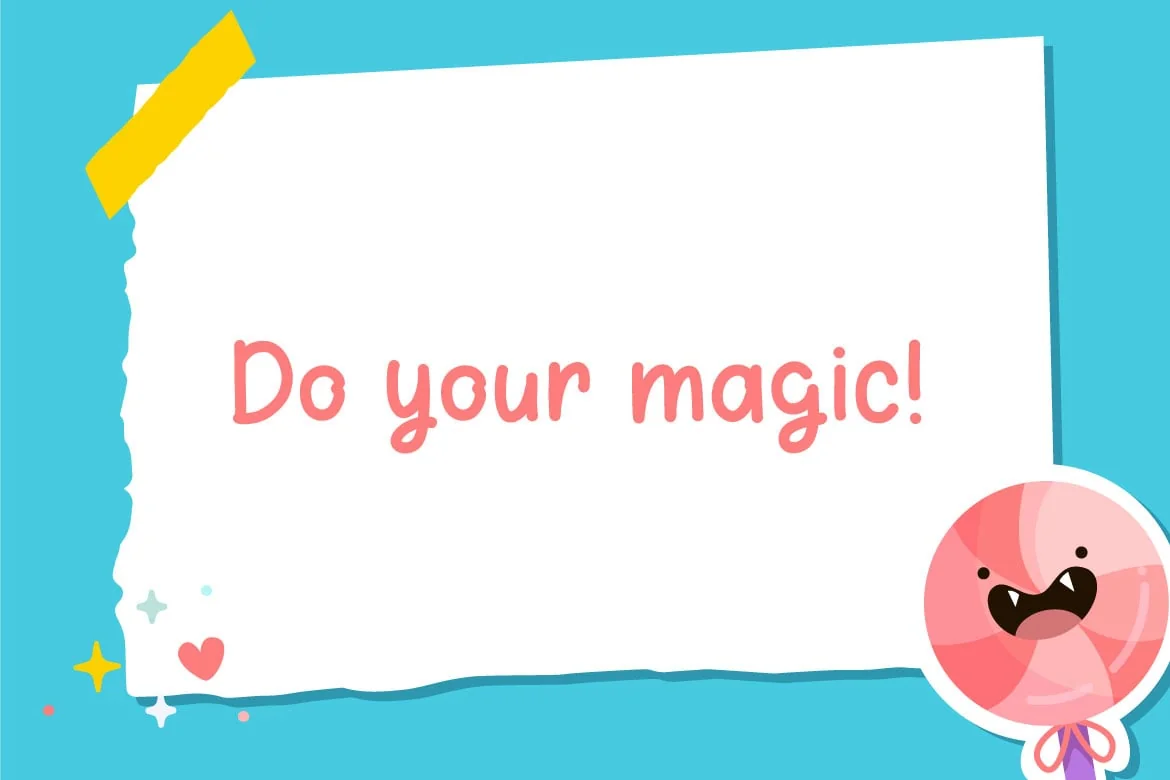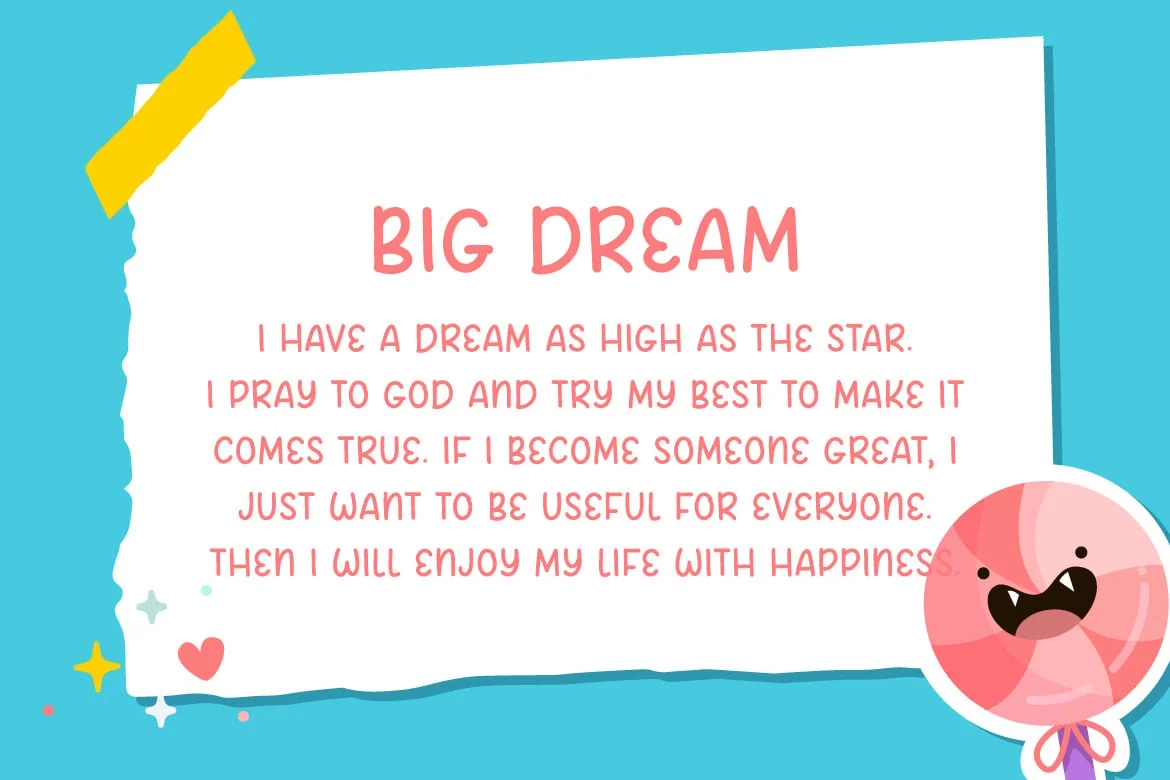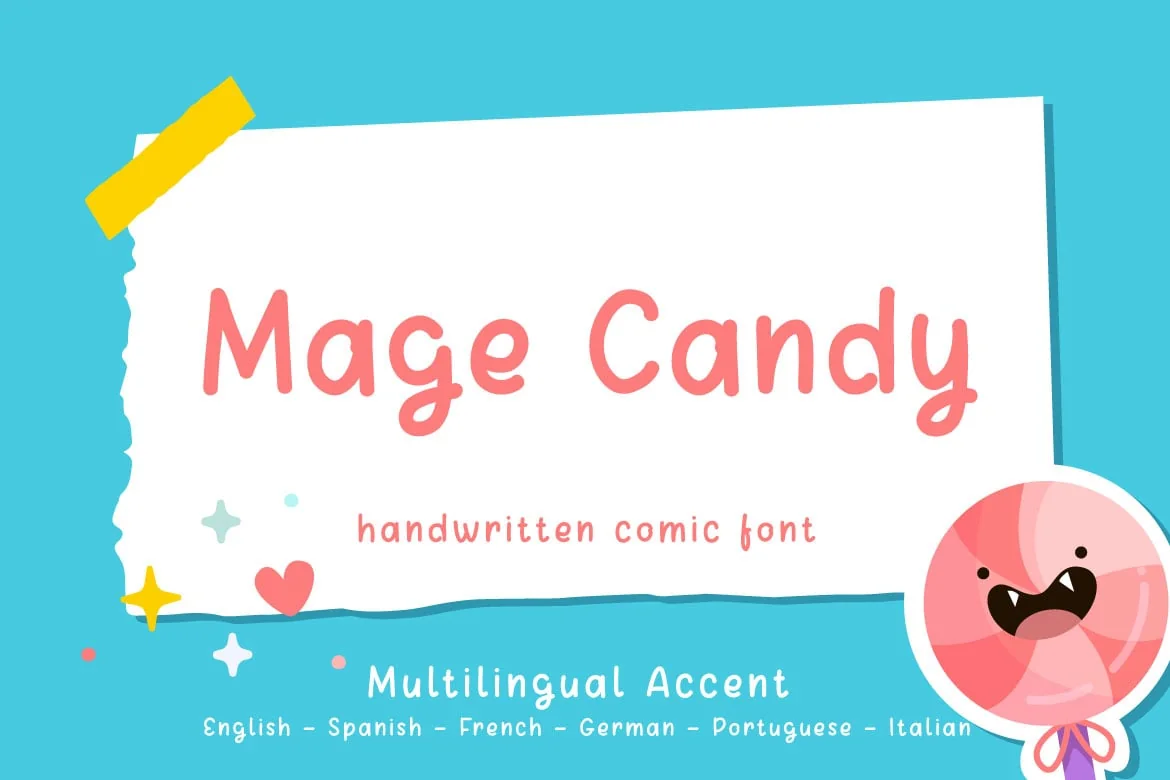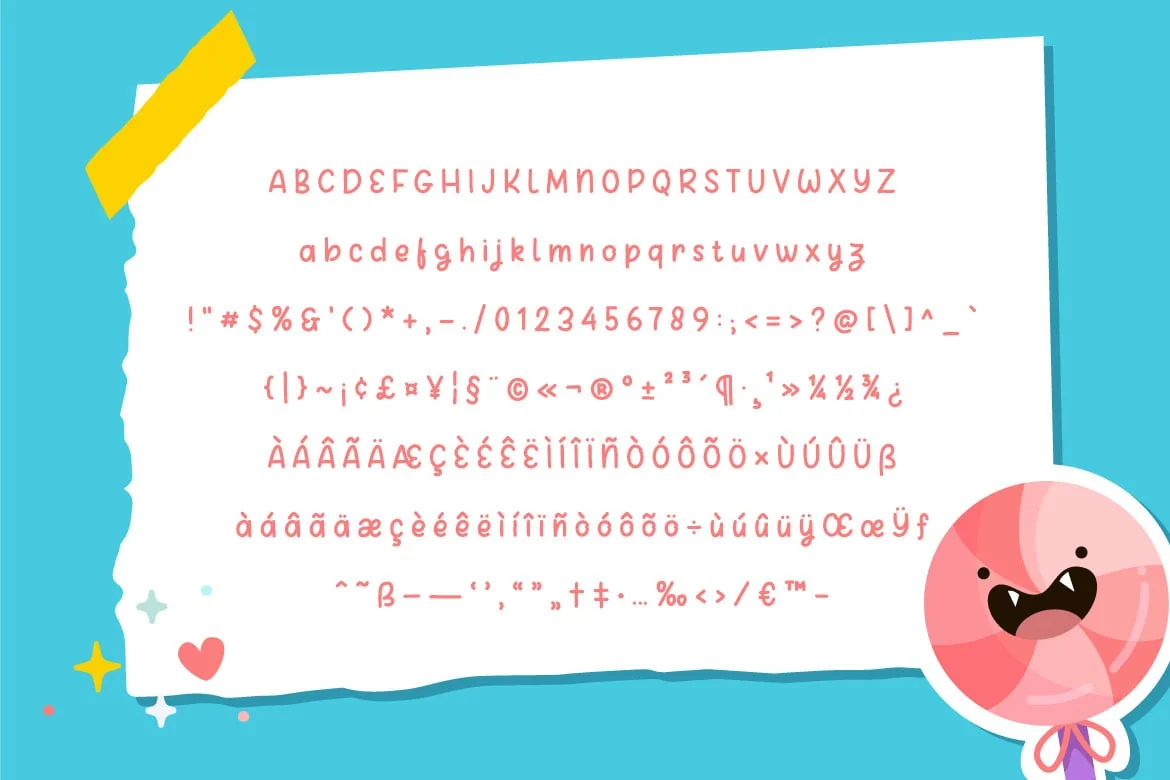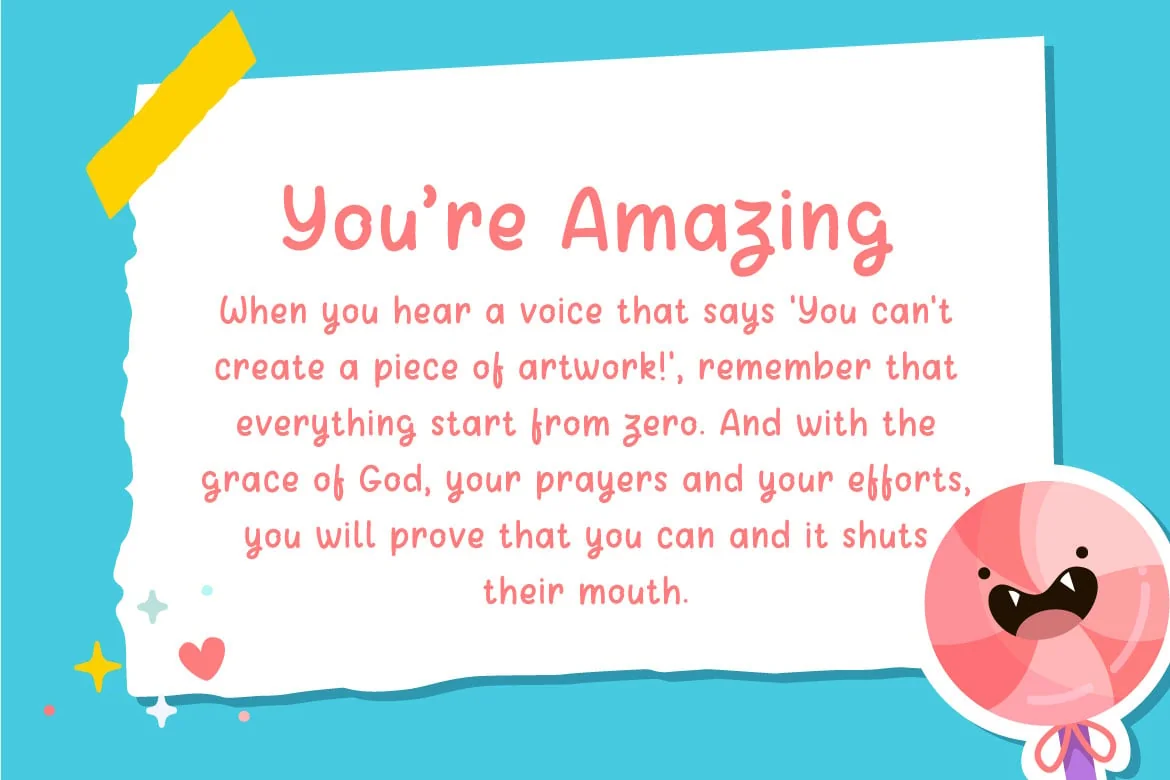
Mage Candy – Multilingual Handwritten Comic Font
Introducing Mage Candy – Multilingual Handwritten Comic Font, a whimsical and lively typeface that brings the charm of hand-drawn comic elements to your design projects. This font is a celebration of creativity and spontaneity, capturing the essence of playful doodles and energetic illustrations.
With its irregular strokes and quirky letterforms, Mage Candy – Multilingual Handwritten Comic Font exudes a sense of authenticity, as if each character was crafted by a skilled comic book artist’s pen. The characters dance across the page with a dynamic rhythm, creating a visual experience that is both entertaining and engaging.